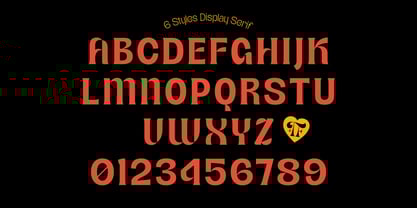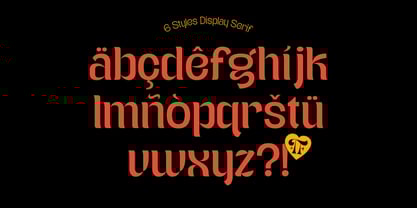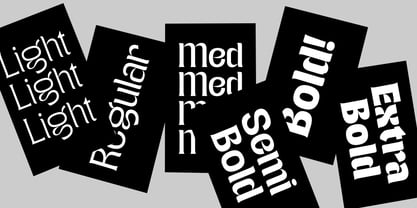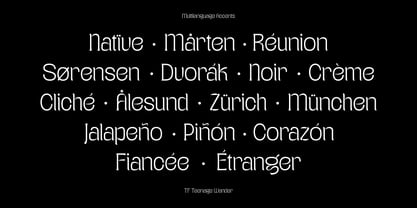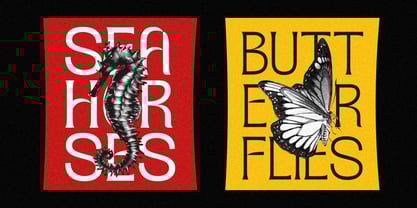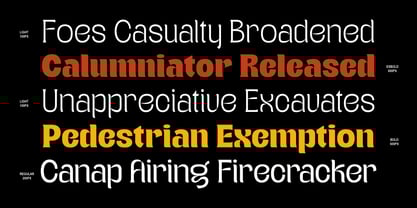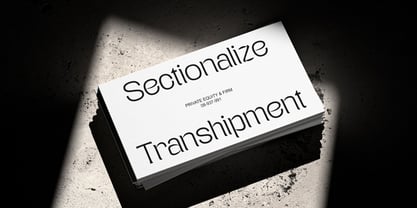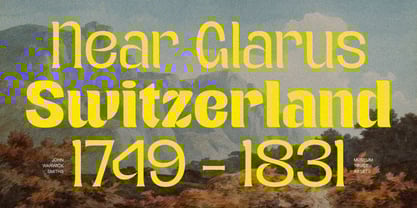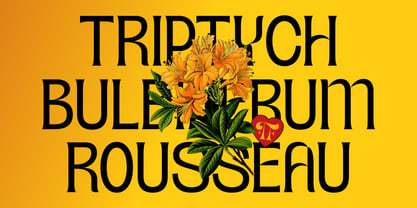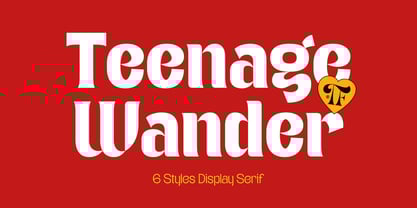
Teenage Wander
by Teenage Foundry
The Teenage Wander Font Family was designed by Miftahul Habib and published by Teenage Foundry. Teenage Wander contains 6 styles and family package options. More about this family
Teenage Wander - A Stylish Display Serif with Bold Personality
Teenage Wander is a modern display serif font that captures the spirit of youth, creativity, and bold expression. With 6 styles - Light, Regular, Medium, Semi Bold, Bold, and Extra Bold - this font gives you the freedom to play with tone and impact.
Perfect for editorial design, fashion branding, posters, and anything that needs a touch of classy attitude. It’s elegant, confident, and just a bit rebellious - like a teenager with a vision.
Designers: Miftahul Habib
Foundry: Teenage Foundry